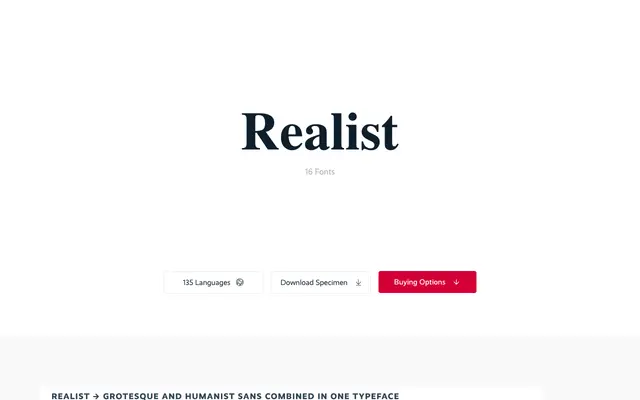
Realist
Supertype · Martin Wenzel · 2011
A sans-serif by Martin Wenzel that bridges humanist warmth and grotesque sturdiness across eight weights with matching italics, selected by Typographica as a favourite typeface in 2011.
Designed by Martin Wenzel, Realist combines the open, organic construction of humanist letterforms with the symmetry and vertical emphasis of the grotesque tradition. The result is a workhorse of 16 styles, spanning Thin to Black with italics throughout, and extending into Narrow and Wide subfamilies for added range. Suited to corporate identity, editorial and product design, it uses OpenType stylistic sets to switch between letterform variants that meaningfully shift its overall character.
Realist deliberately merges humanist letterform construction with grotesque characteristics, blending the warmth of humanist sans-serifs with the sturdiness and neoclassicist symmetry of grotesques.